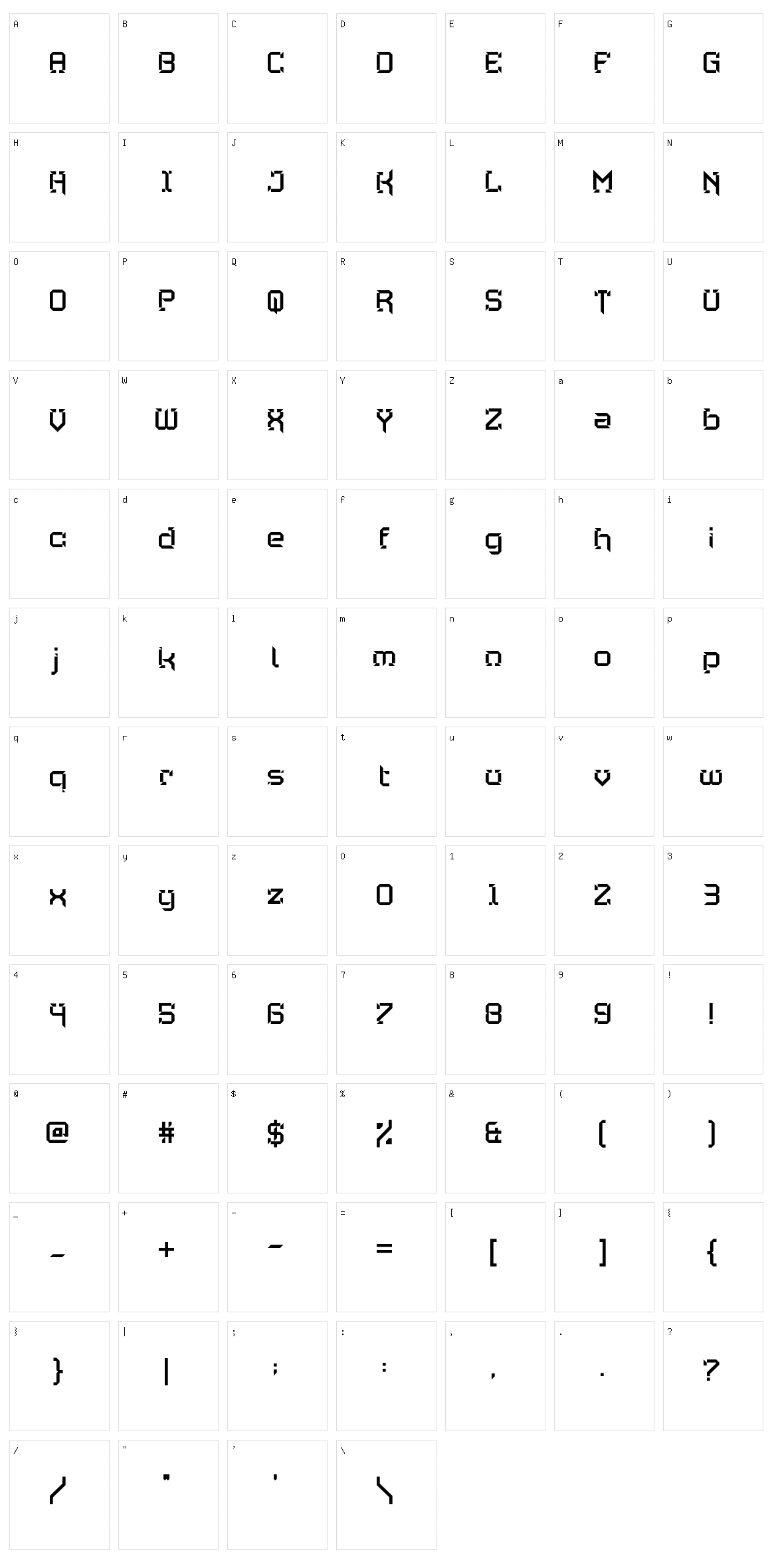
The free font Jawbreaker is carefully designed by Chequered Ink, showcasing a thoughtful balance of creativity and usability and falls under the Square font style. When you download the ZIP file, it contains only 4.15 KB of font files, making it lightweight and quick to download. Please review the license details below to understand permitted usage and distribution rights. If license information is not available, we recommend using this font for personal projects only or contacting the author directly for commercial usage permissions.